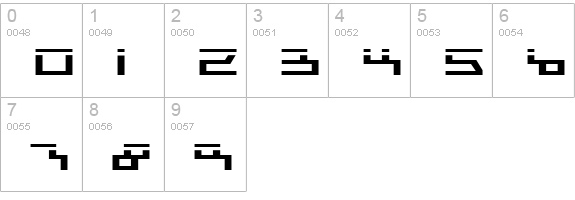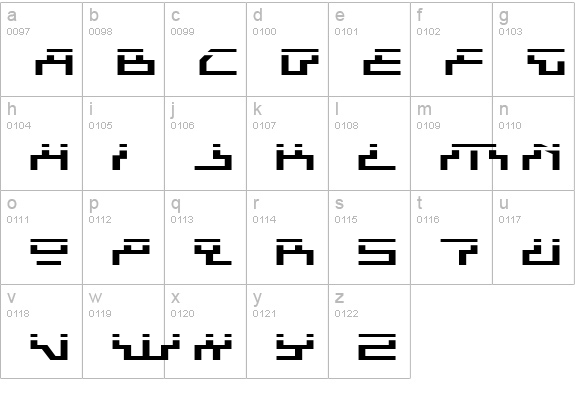
Beam Rider Expanded Laser is a distinctive, extended-width variant in the Beam typeface family \xE2\x80\x94 well suited to design and typography projects.
Introducing Beam Rider Expanded Laser, a sleek and futuristic font perfect for adding a touch of sci-fi flair to your designs. With its sharp angles and bold lines, this font exudes a sense of modernity and innovation. The Expanded Laser variant of Beam Rider takes the original font to new heights, offering a more elongated and dynamic look. This font is ideal for creating eye-catching headlines, logos, and posters that command attention. Whether you're working on a science fiction project, a tech-related design, or simply want to make a statement, Beam Rider Expanded Laser is sure to make your text stand out. And the best part? Beam Rider Expanded Laser is completely free to download at FontsMarket.com! So go ahead and unleash your creativity with this striking and versatile font today.